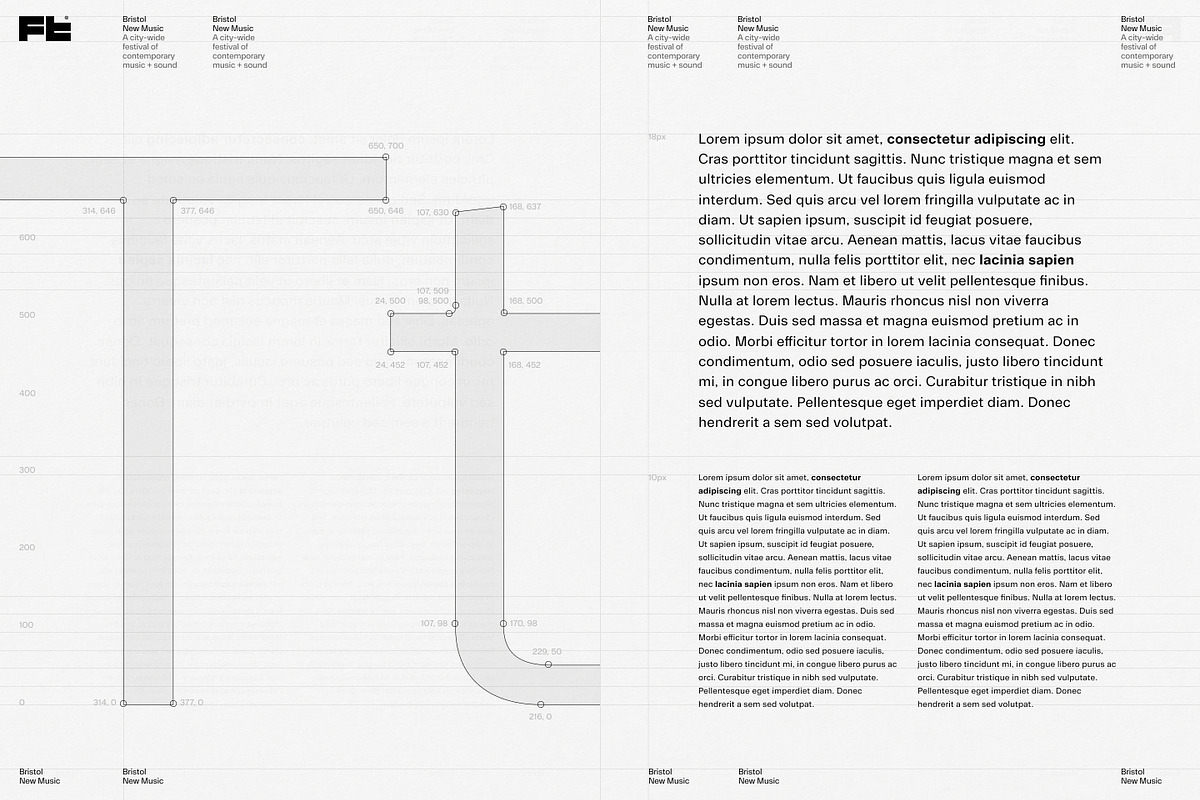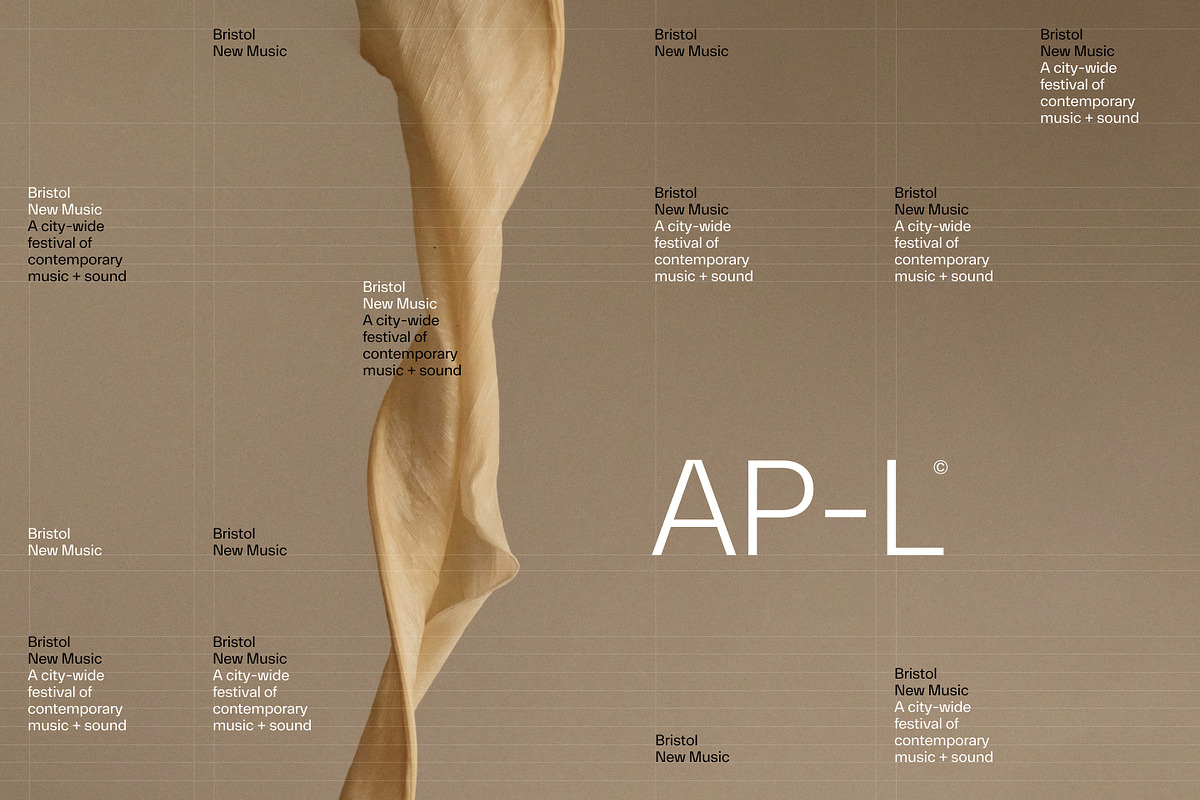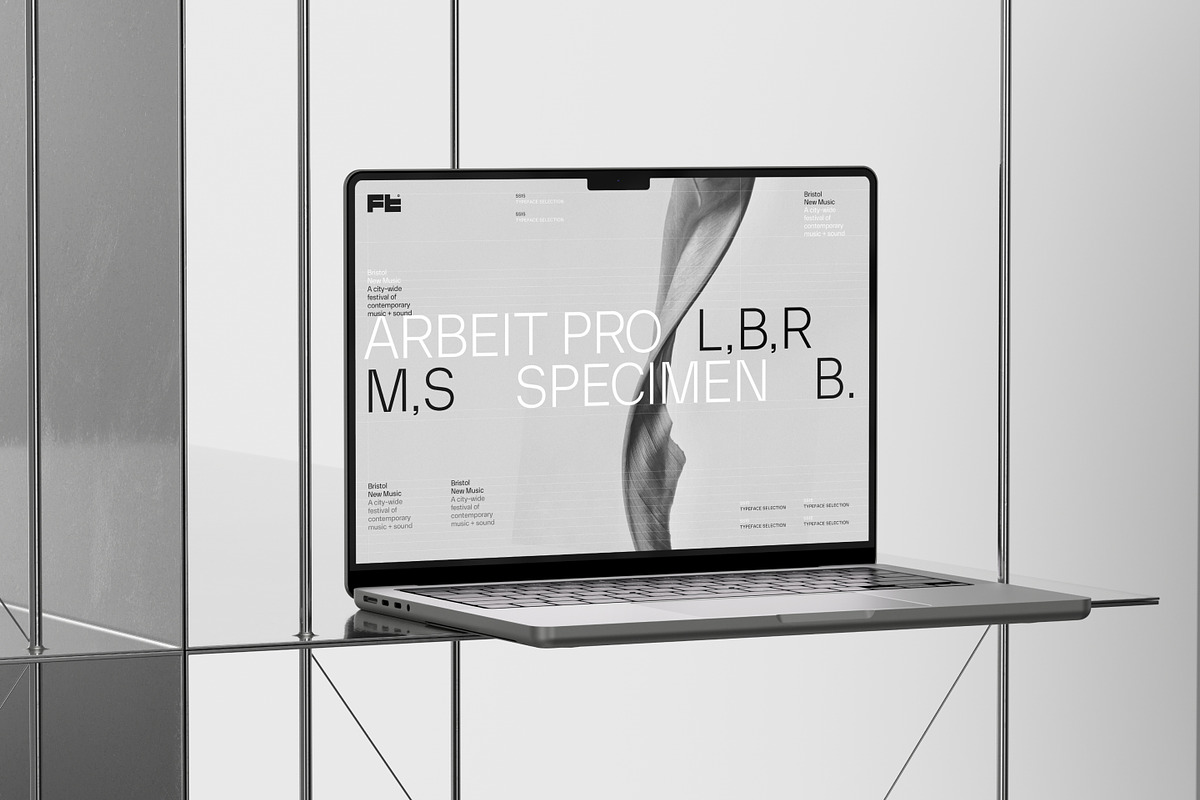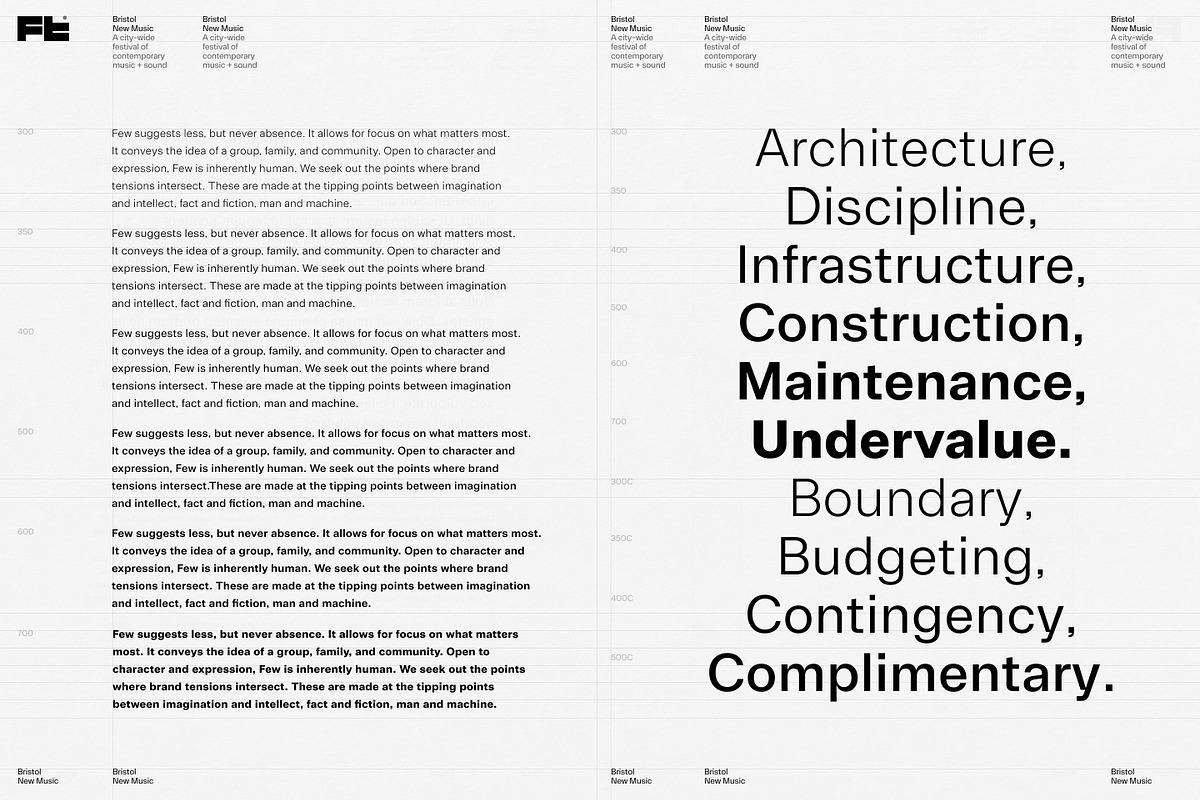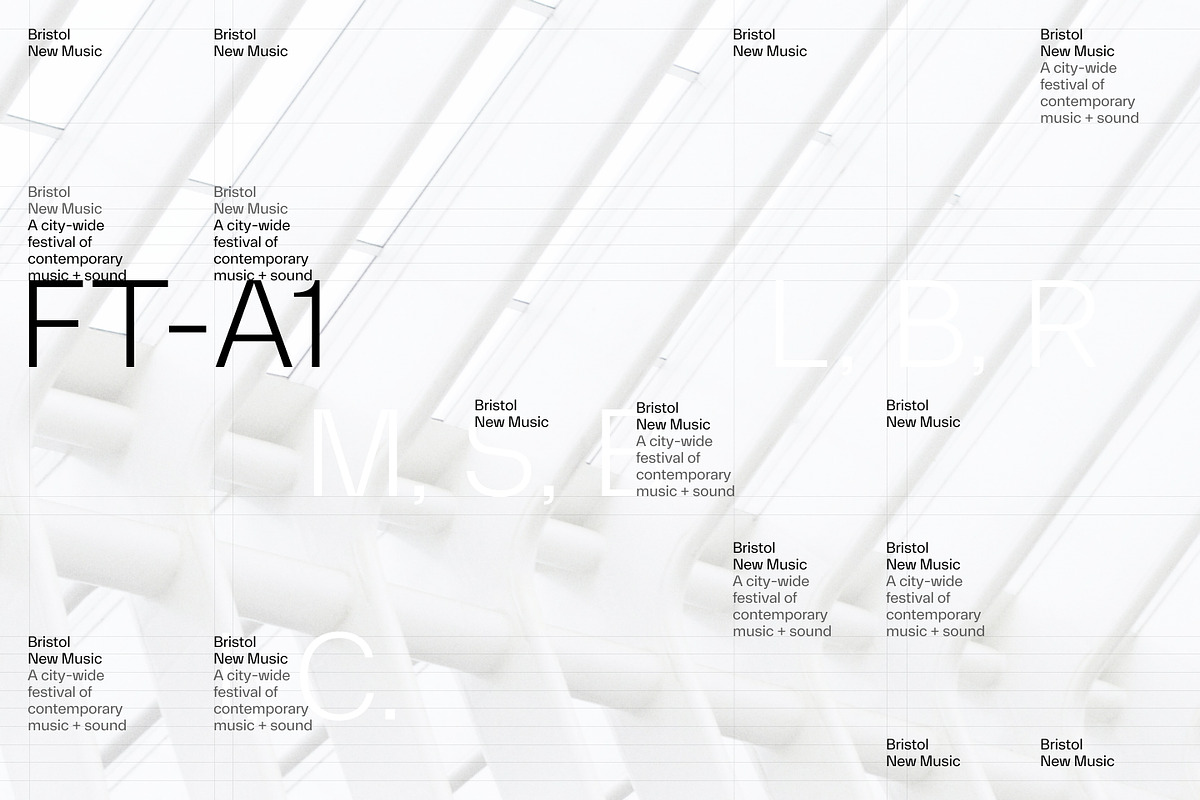
Arbeit Pro - Full Family
A remaster of Neo Grotesk family - Arbeit. It employs improved letterform balance and contrast throughout. All weights feature a set of new alternates under the style 'Contrast'.